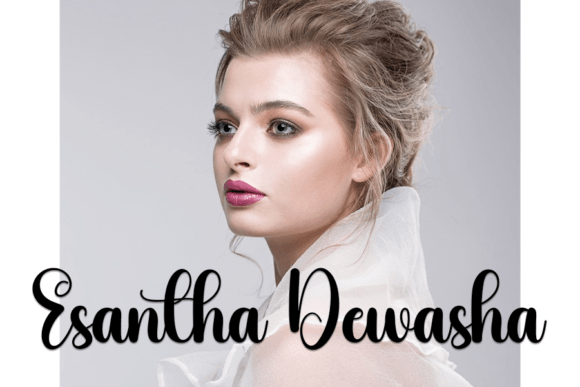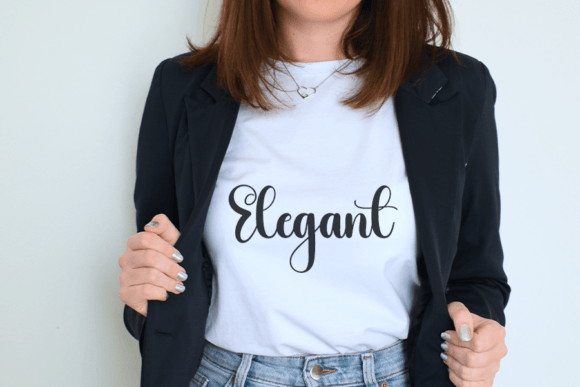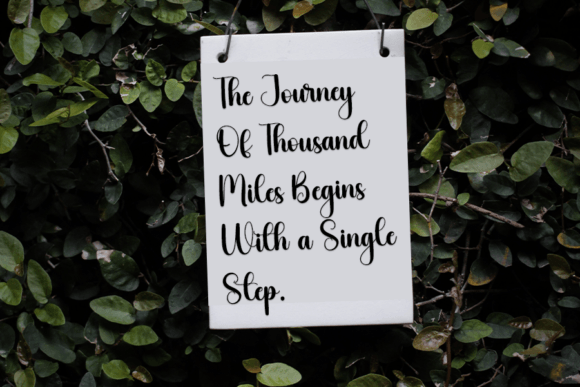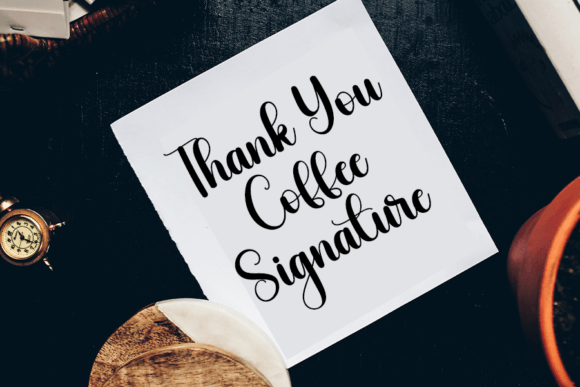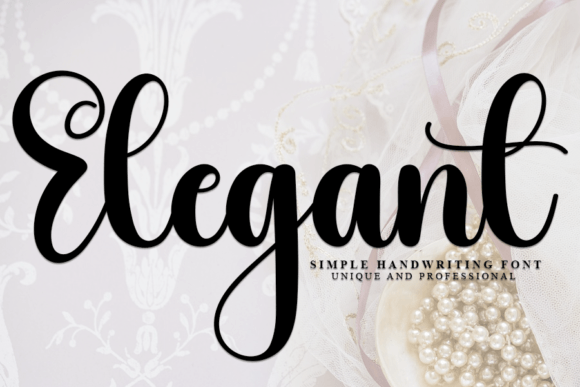
Elegant Font: Elevate Your Designs with a Touch of Sophistication
In the world of typography, an elegant font can make all the difference in creating a lasting impression. Introducing Elegant, a delicate handwritten font that has been carefully crafted to add a touch of sophistication to your designs. With its unique and cool style, Elegant is perfect for a wide range of applications, from writing letters and invitations to labeling food products and creating titles.
The Characteristics of an Elegant Font
Elegant is a beautifully designed font that boasts a range of characteristics that set it apart from other fonts. Its delicate and handwritten style gives it a personal and intimate feel, making it perfect for designs that require a touch of warmth and personality. The font’s unique and cool design ensures that it will add a touch of sophistication to any project, making it ideal for designers and crafters who want to create something truly special.
Uses of the Elegant Font
Elegant is a versatile font that can be used in a wide range of applications. Some of the most popular uses for this font include:
- Writing Letters and Invitations: Elegant is perfect for writing letters and invitations, adding a touch of sophistication and elegance to your correspondence.
- Food Products: The font’s delicate and handwritten style makes it ideal for labeling food products, such as bakery items, specialty foods, and more.
- Titles and Headings: Elegant is also perfect for creating titles and headings, adding a touch of elegance and sophistication to your designs.
- Design Projects: Whether you’re working on a graphic design project, a craft project, or a DIY project, Elegant is a great font to use to add a touch of personality and style.
Why Choose the Elegant Font?
There are many reasons why designers and crafters choose the Elegant font for their projects. Some of the benefits of using this font include:
- Unique and Cool Design: Elegant has a unique and cool design that will add a touch of sophistication to any project.
- Delicate and Handwritten Style: The font’s delicate and handwritten style gives it a personal and intimate feel, making it perfect for designs that require a touch of warmth and personality.
- Versatile: Elegant is a versatile font that can be used in a wide range of applications, from writing letters and invitations to labeling food products and creating titles.
Tips for Using the Elegant Font
To get the most out of the Elegant font, here are a few tips to keep in mind:
- Use it Sparingly: While Elegant is a beautiful font, it’s best to use it sparingly to avoid overwhelming the design.
- Pair it with Other Fonts: Elegant pairs well with other fonts, so don’t be afraid to experiment with different combinations.
- Adjust the Size and Color: Adjusting the size and color of the font can help to add emphasis and create visual interest.
- Experiment with Different Applications: Don’t be afraid to experiment with different applications, such as using the font for headings, titles, and body text.
In conclusion, the Elegant font is a beautiful and versatile font that is perfect for designers and crafters who want to add a touch of sophistication to their projects. With its unique and cool design, delicate and handwritten style, and ease of use, Elegant is a great choice for a wide range of applications. Whether you’re writing letters and invitations, labeling food products, or creating titles and headings, Elegant is a font that is sure to impress.